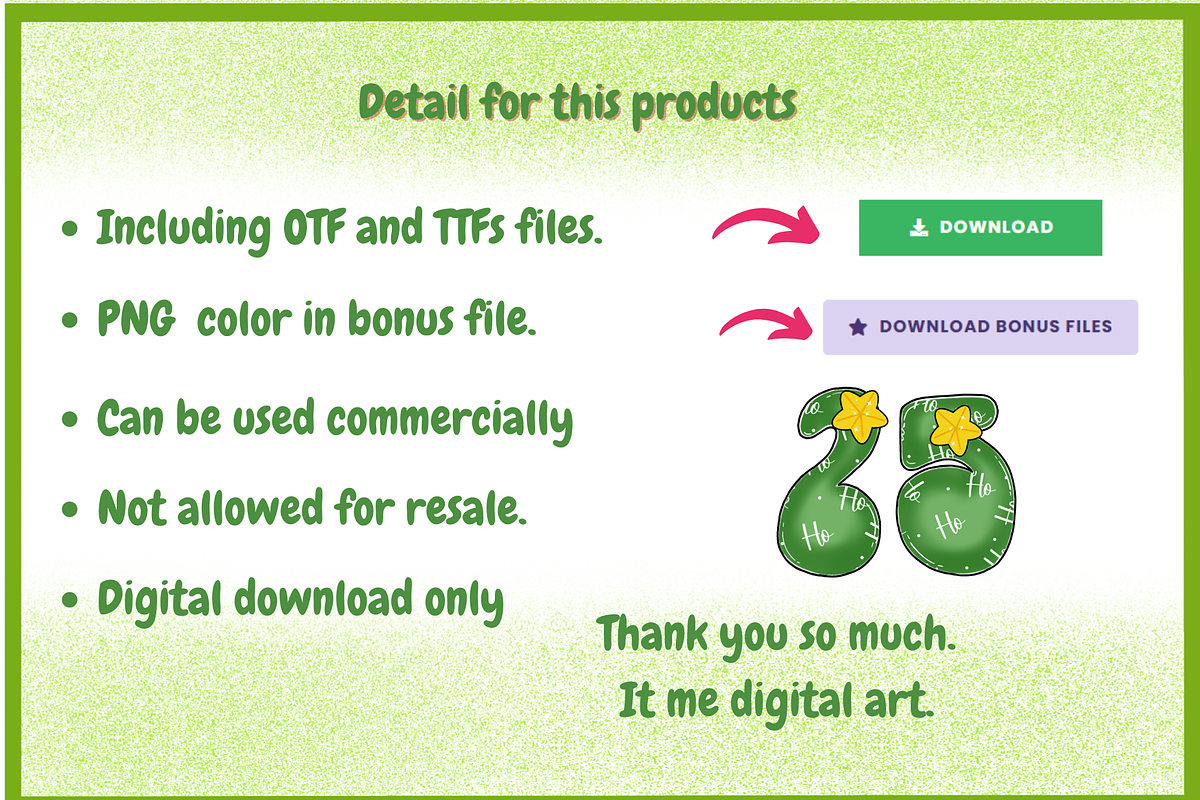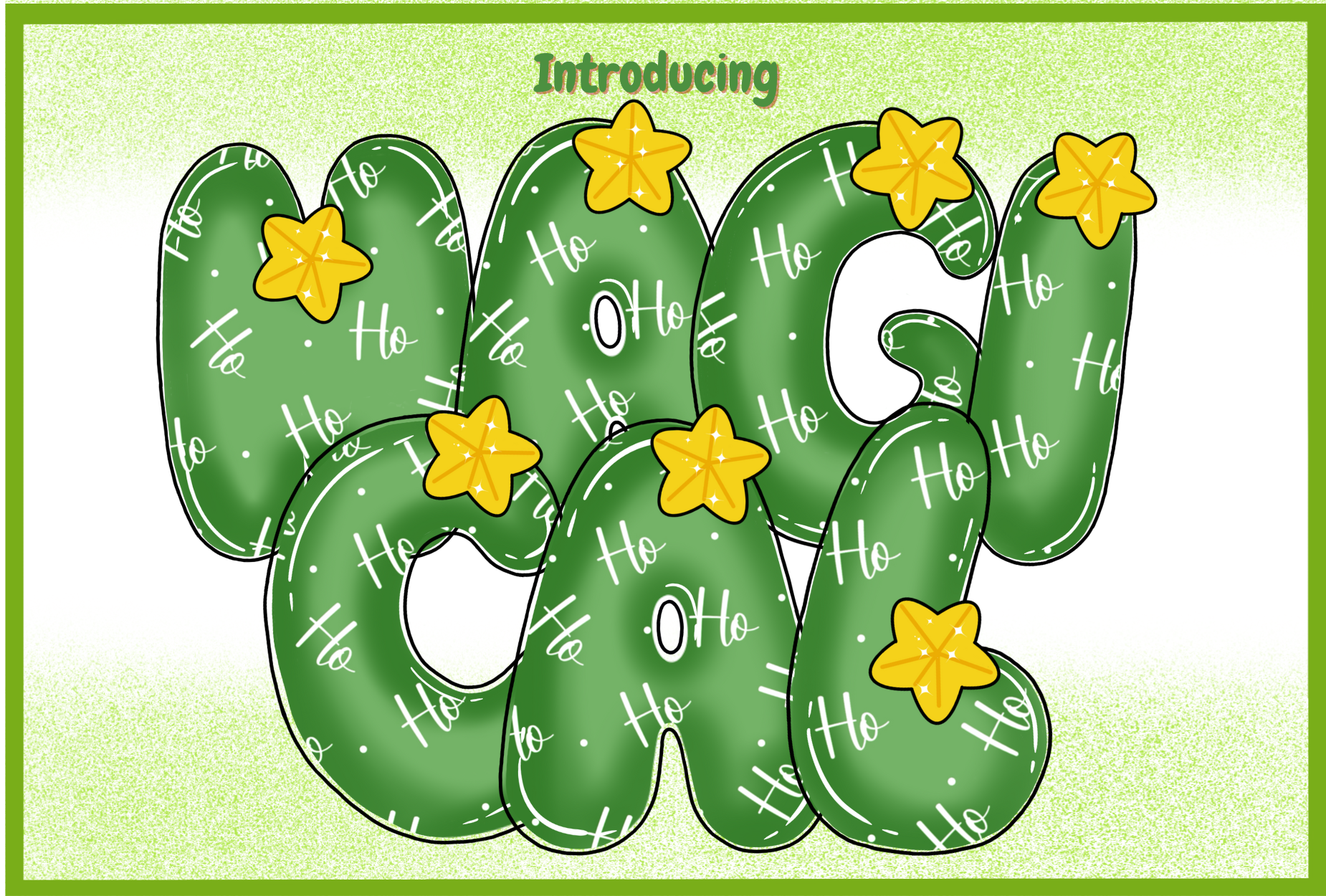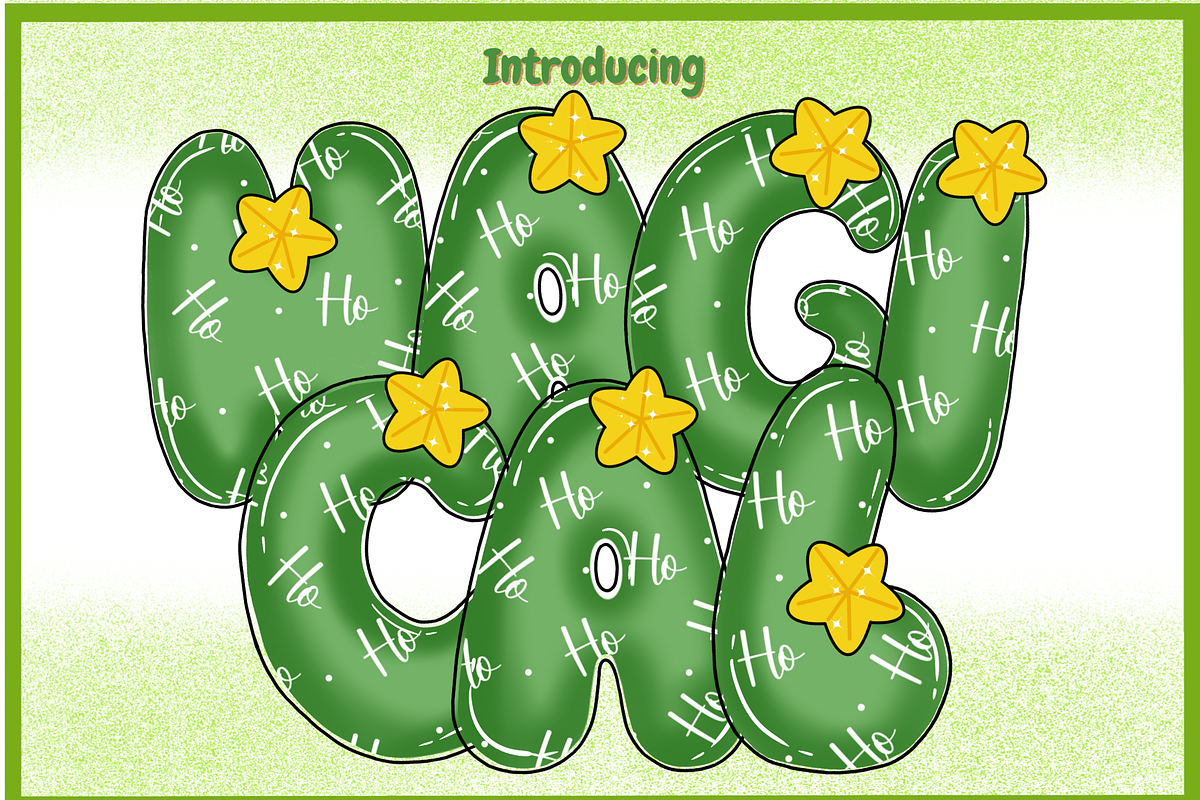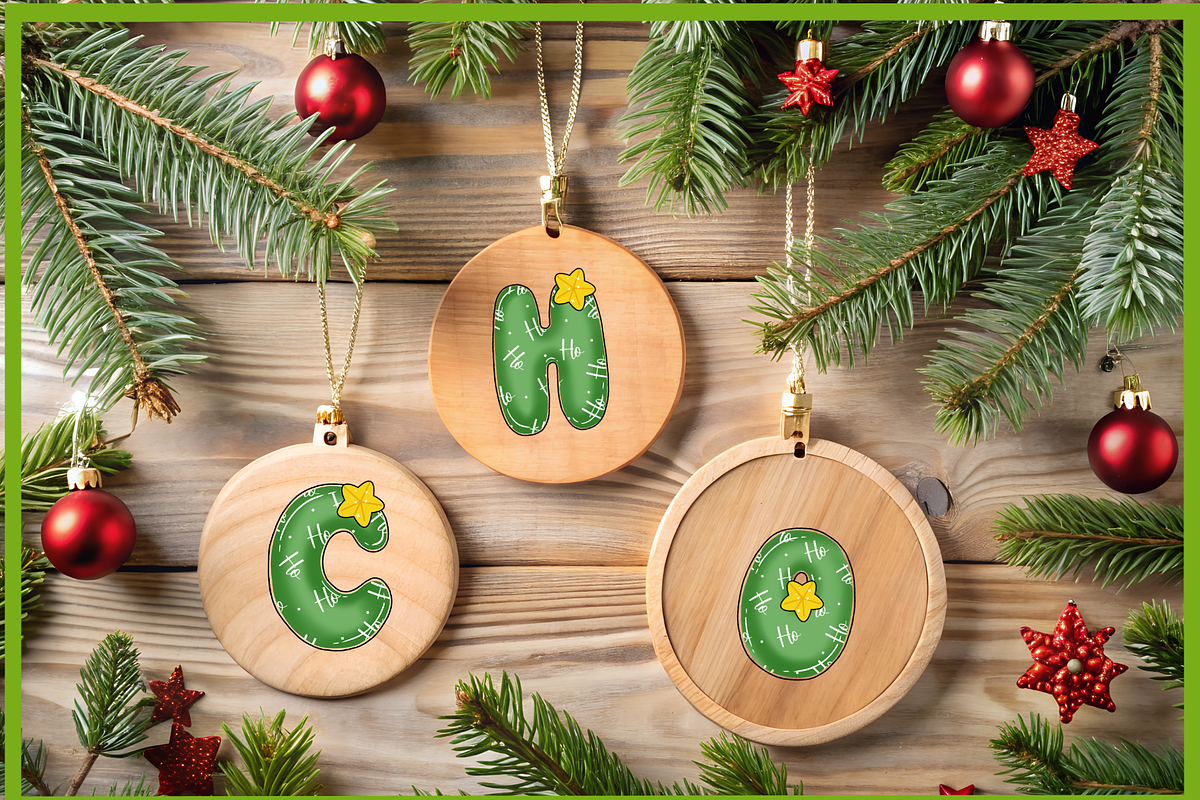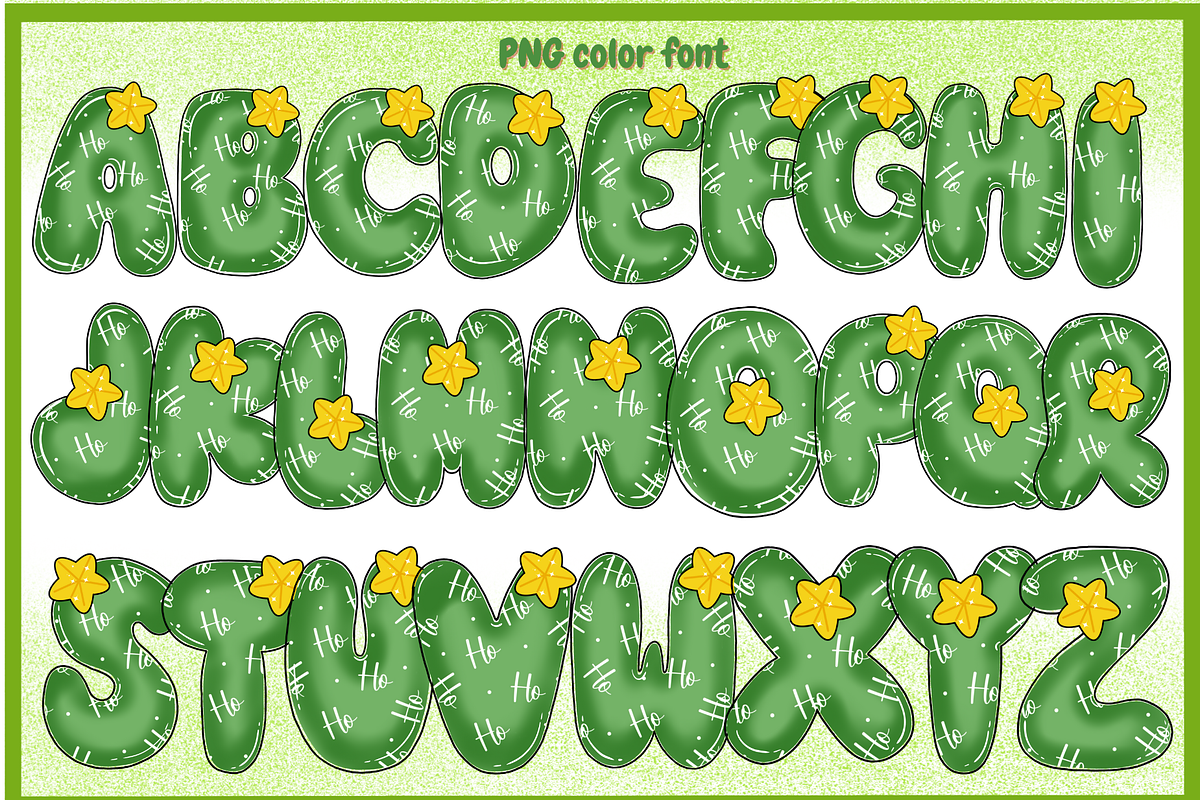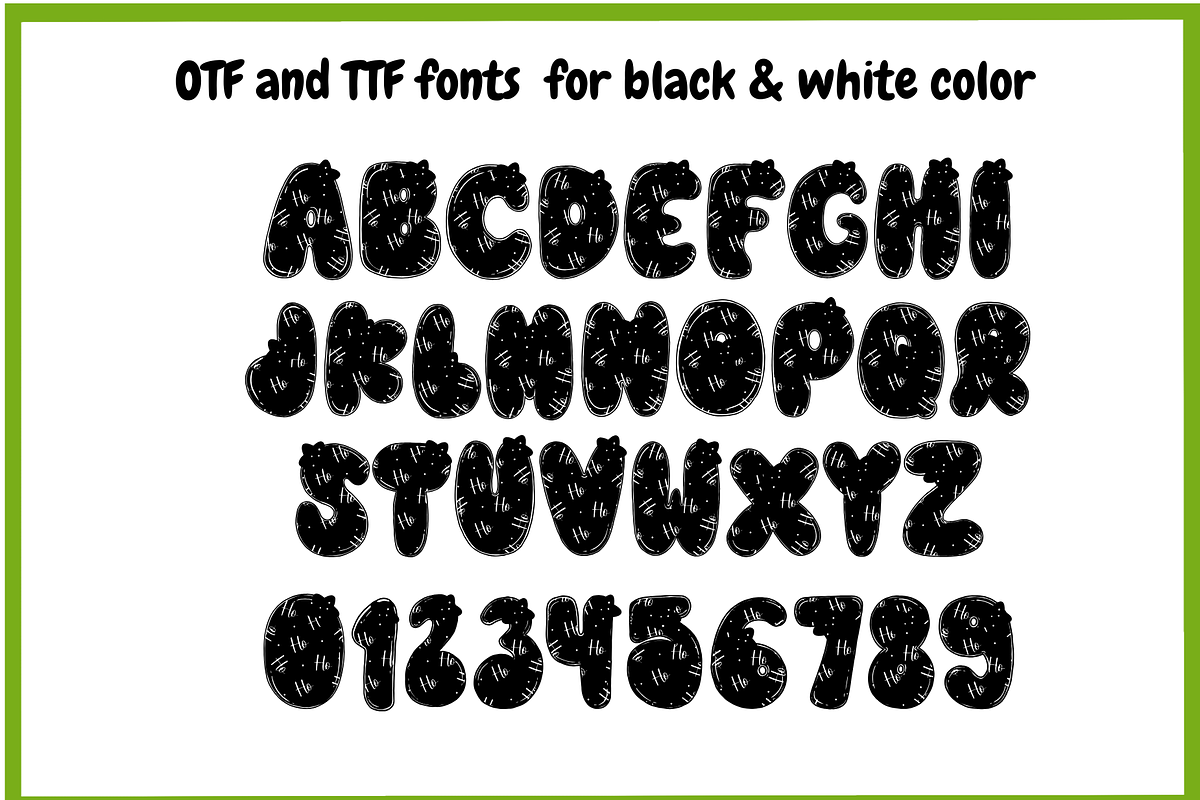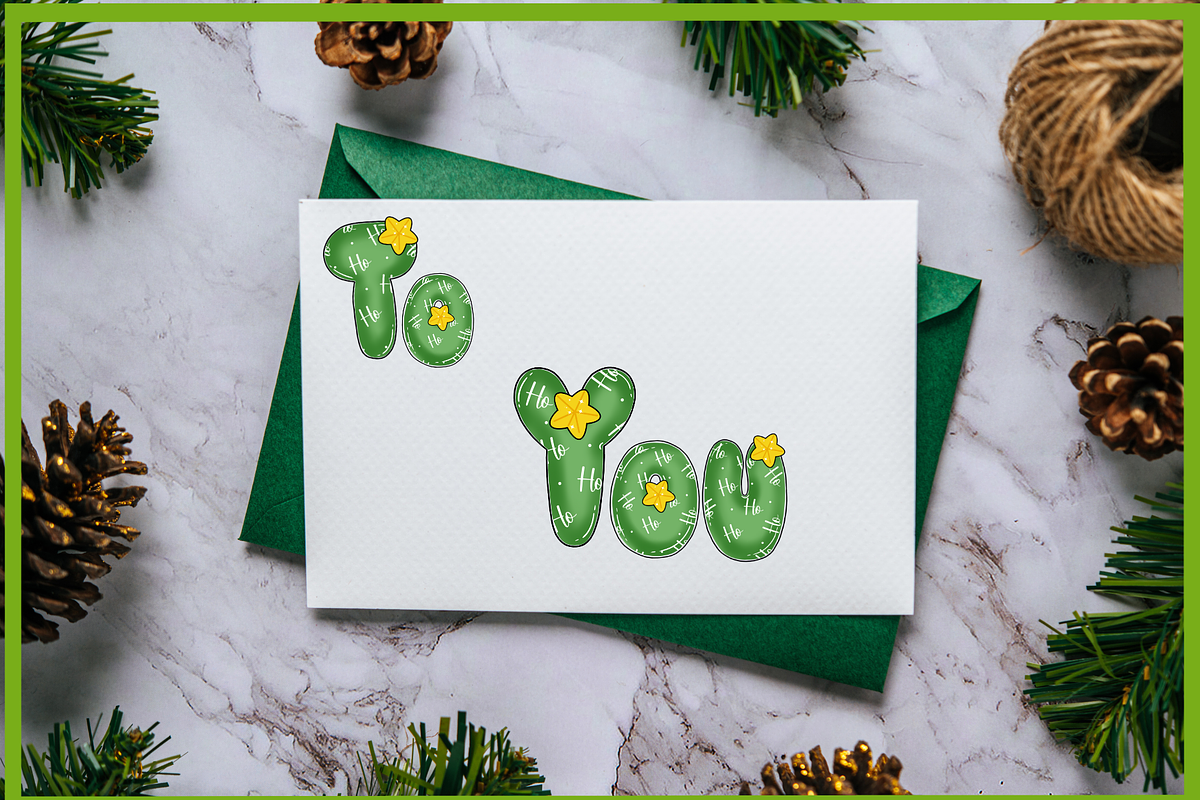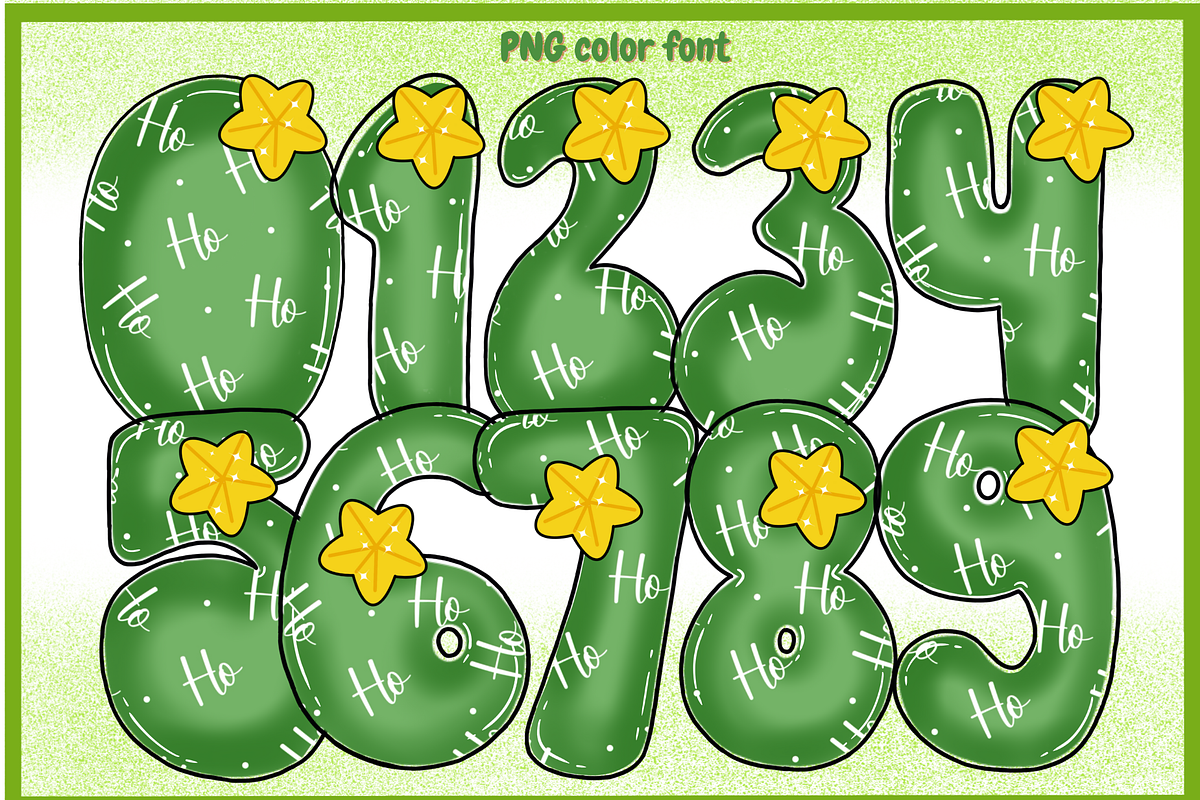
Magical-PNG fonts
Introducing – “Magical Font” 🎄 Bring the holiday spirit to your designs with this festive Christmas-themed font! “Magical is a colorful PNG font that comes in both OTF and TTF black color versions — perfect for crafting, greeting cards, posters, T-shirt designs, and all your Christmas projects! Each letter is designed like a cute cactus wrapped in holiday cheer, featuring “Ho Ho Ho” patterns and shining yellow stars — giving your text a playful and joyful Christmas touch.